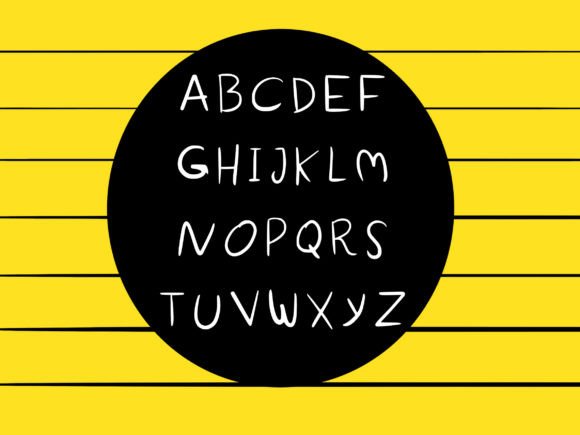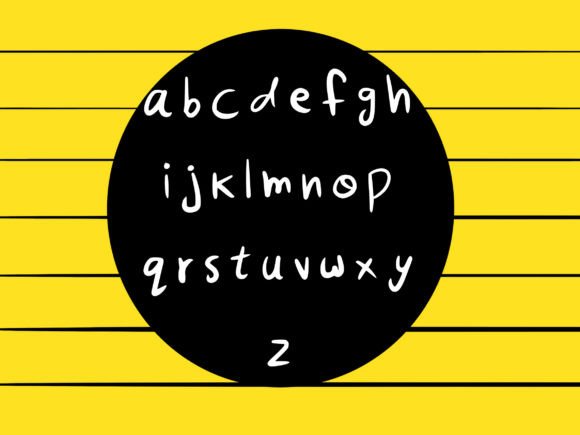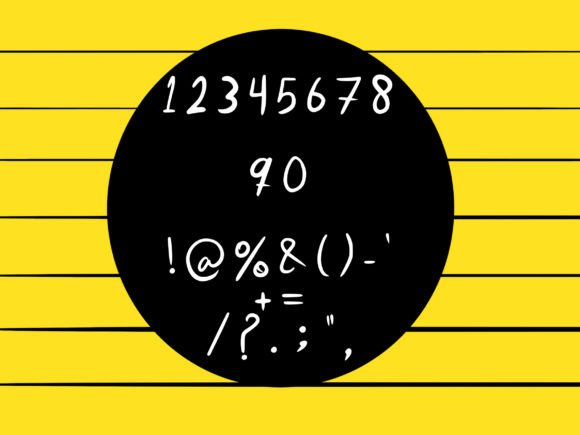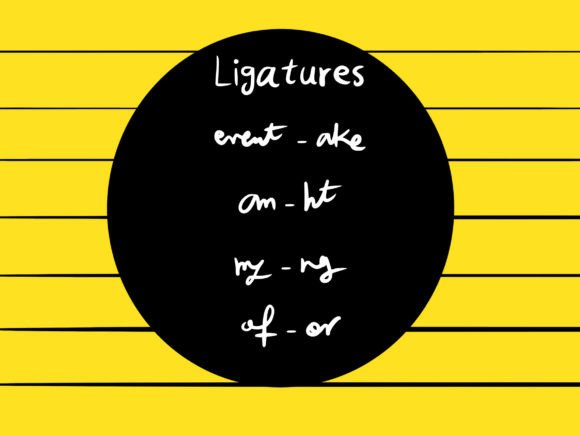
Introducing Fine Typing Font: Add a Personal Touch to Your Designs
Are you tired of using generic, cookie-cutter fonts in your designs? Look no further than Fine Typing Font, a quirky handwritten font that’s sure to add a personal touch to your projects. With its unique, hand-written characteristics, Fine Typing Font is perfect for designers and crafters who want to bring a natural, organic feel to their work.
The Characteristics of Fine Typing Font
Fine Typing Font is a carefully crafted handwritten font that’s made to mimic the natural flow of handwriting. Each letter is carefully written by hand, giving the font a unique and organic feel that’s perfect for a wide range of design applications. Whether you’re working on a website, creating svg designs, or crafting home decor items, Fine Typing Font is the perfect choice.
What Makes Fine Typing Font So Versatile?
One of the things that sets Fine Typing Font apart from other fonts is its incredible versatility. This font can be used in a wide range of design applications, including:
- Websites: Add a personal touch to your website with Fine Typing Font. Use it for headings, titles, and even body text to create a unique and engaging user experience.
- SVG Designs: Fine Typing Font is perfect for svg designs, including cutting files, iron-on designs, and more.
- Home Decor: Use Fine Typing Font to add a personal touch to your home decor items, such as wall art, signs, and more.
- Branding: Create a unique and memorable brand identity with Fine Typing Font. Use it for logos, business cards, and more.
- Blogs: Add a personal touch to your blog with Fine Typing Font. Use it for headings, titles, and even body text to create a unique and engaging reading experience.
- Logos: Create a unique and memorable logo with Fine Typing Font. Perfect for businesses, events, and more.
- Invitations: Use Fine Typing Font to create unique and personalized invitations for weddings, parties, and more.
The Benefits of Using Fine Typing Font
So why choose Fine Typing Font for your design projects? Here are just a few benefits of using this unique and versatile font:
- Unique and Personal: Fine Typing Font adds a personal touch to your designs, setting them apart from generic, cookie-cutter fonts.
- Natural and Organic: The hand-written characteristics of Fine Typing Font give it a natural, organic feel that’s perfect for a wide range of design applications.
- Versatile: Fine Typing Font can be used in a wide range of design applications, from websites and svg designs to home decor and branding.
- Easy to Read: Despite its unique and handwritten characteristics, Fine Typing Font is still easy to read, making it perfect for body text and other applications where readability is key.
How to Use Fine Typing Font in Your Designs
Using Fine Typing Font in your designs is easy. Here are a few tips to get you started:
- Pair it with Other Fonts: Fine Typing Font pairs well with a wide range of other fonts. Try pairing it with a clean, sans-serif font for a unique and interesting contrast.
- Experiment with Colors: Fine Typing Font looks great in a wide range of colors. Experiment with different colors and color combinations to find the perfect look for your design.
- Use it for Headings and Titles: Fine Typing Font is perfect for headings and titles. Use it to add a personal touch to your design and draw attention to important information.
Fine Typing Font is a unique and versatile handwritten font that’s perfect for designers and crafters who want to add a personal touch to their designs. With its natural, organic characteristics and incredible versatility, Fine Typing Font is the perfect choice for a wide range of design applications. Whether you’re working on a website, creating svg designs, or crafting home decor items, Fine Typing Font is sure to bring a unique and engaging touch to your work.